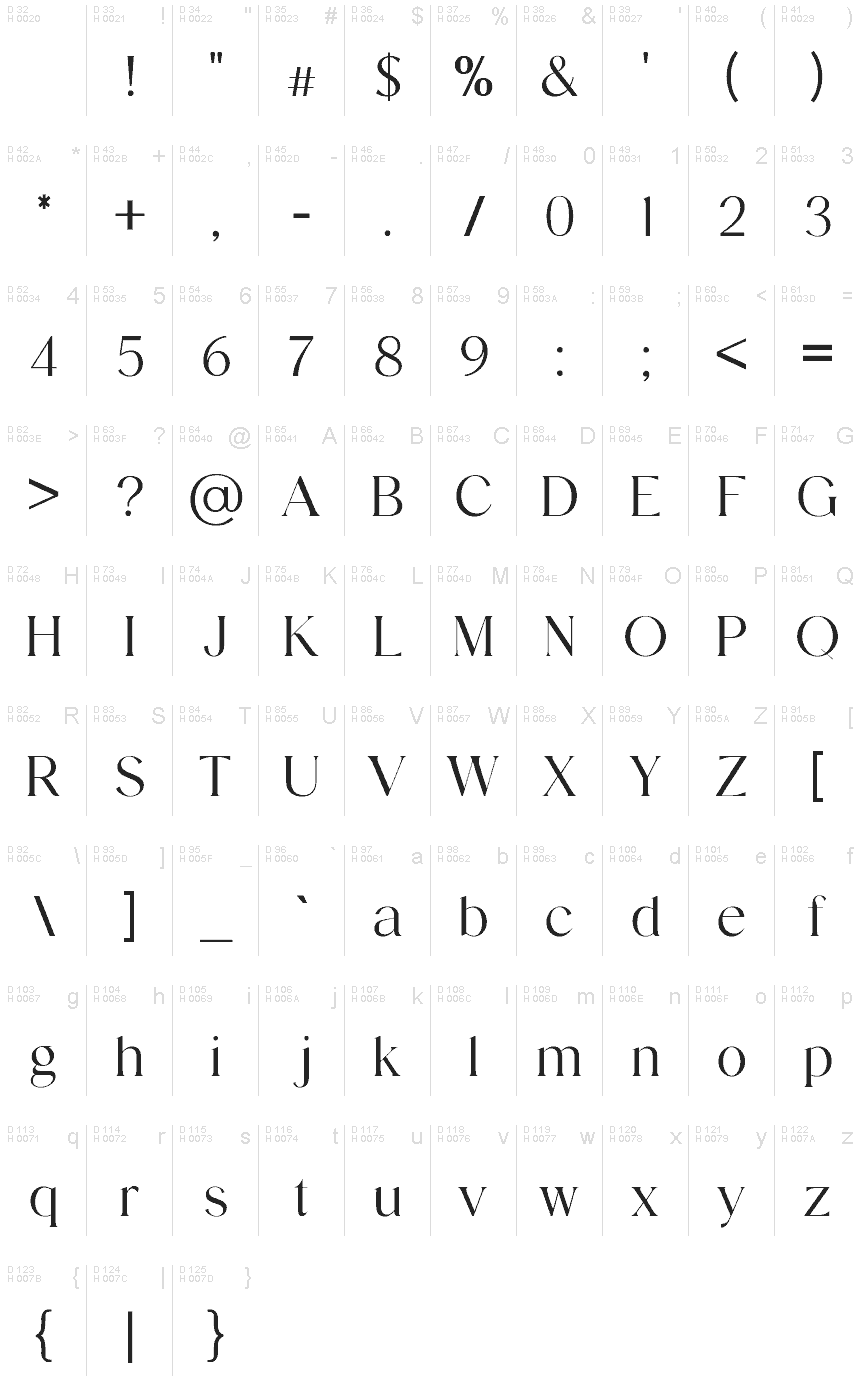
The Sectarian Regular
The Sectarian font by UI Creative is an elegant serif font that artfully combines a classic touch with professional sophistication. Its refined lines and traditional serif elements create a polished and cohesive appearance that is both timeless and versatile.